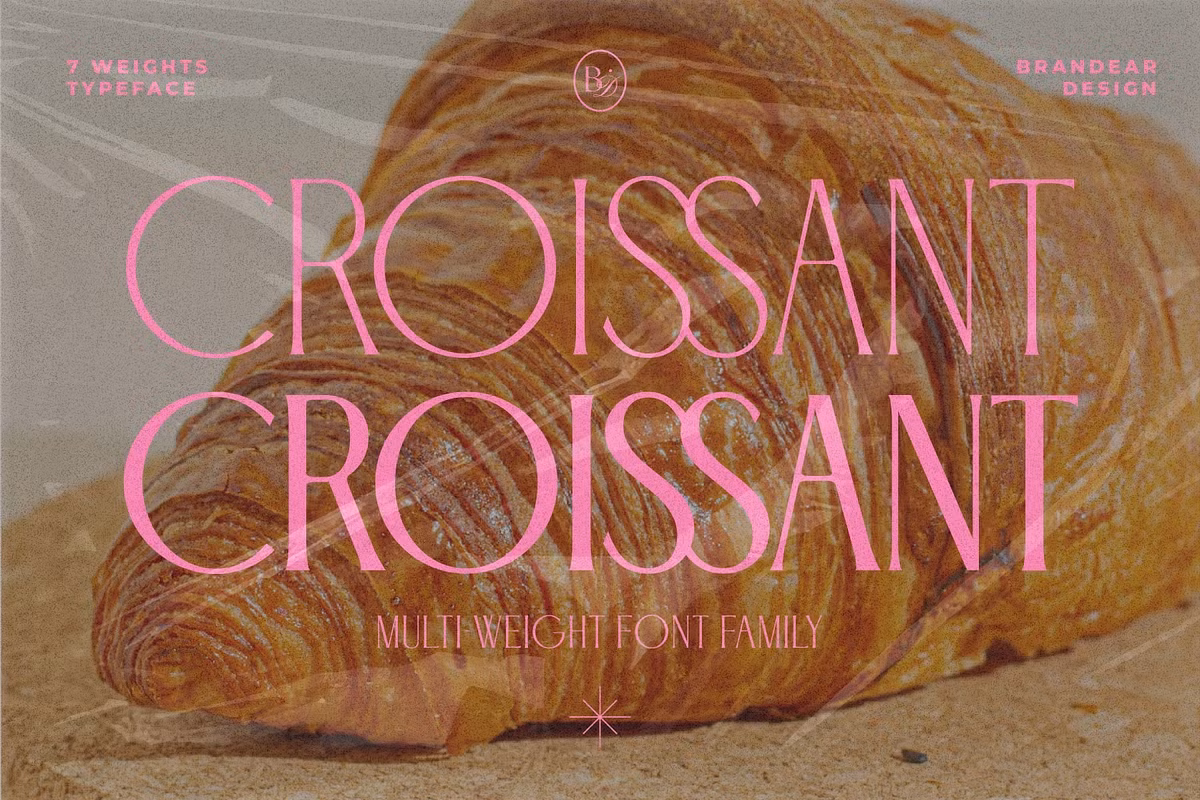
Brandear - Croissant Font Free Download is a stylish and playful typeface that combines smooth, rounded curves with a creative flair, inspired by modern branding and contemporary design. Perfect for logos, branding, invitations, product packaging, and more, this font brings a touch of warmth and charm to your typography.
Its unique letterforms make it ideal for projects that want to stand out with a friendly and approachable style. Whether you’re working on a food brand, creative campaigns, or personal designs, Brandear - Croissant adds personality and elegance to your work.